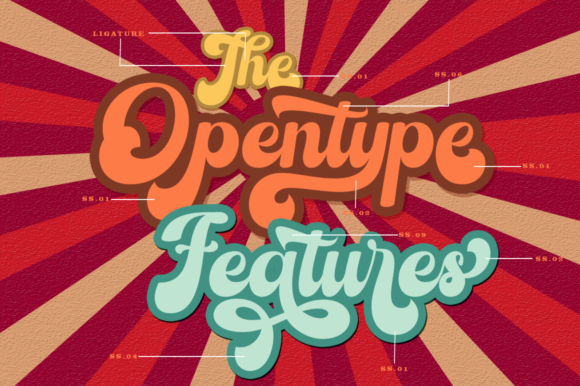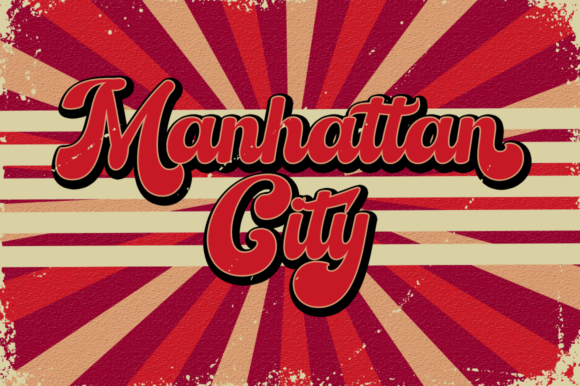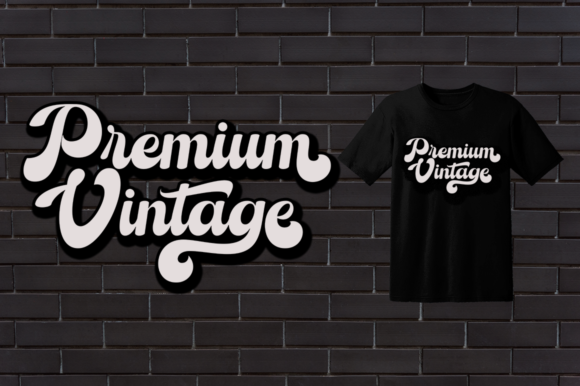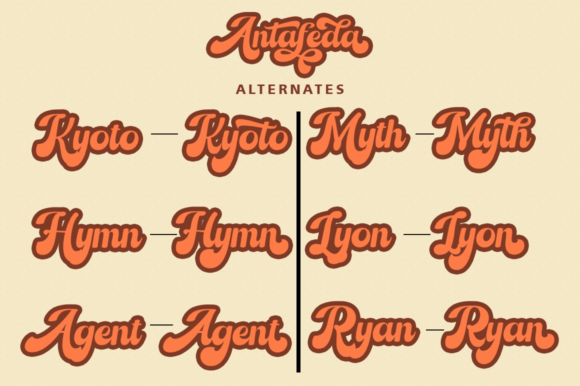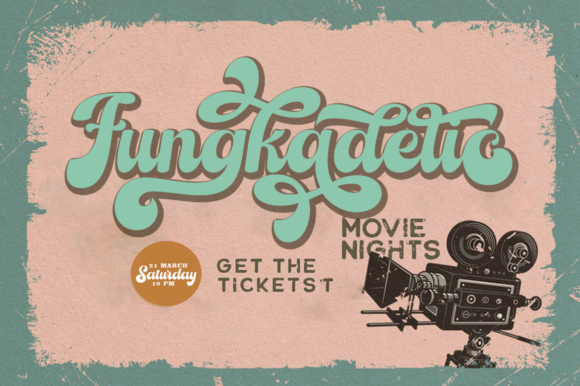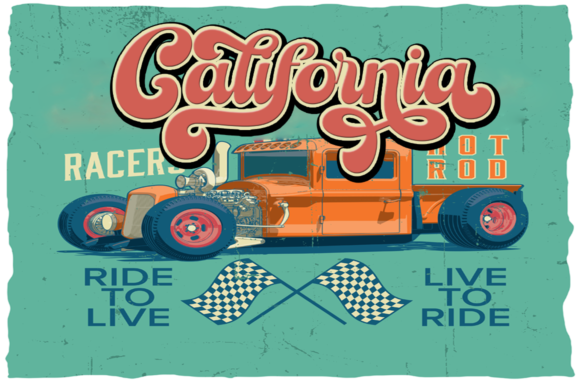
Introducing Antafeda Font: A Bold and Retro Styled Handwritten Font
Are you looking for a font that can add a touch of personality and style to your designs? Look no further than Antafeda Font, a bold and retro styled handwritten font that’s perfect for a wide range of projects. In this article, we’ll take a closer look at Antafeda Font, its features, and how you can use it to take your designs to the next level.
What is Antafeda Font?
Antafeda Font is a bold and retro styled handwritten font that’s designed to make a statement. Its unique and stylish lettering makes it perfect for use in a variety of projects, from wall displays and wedding invitations to social media post logos, advertisements, product packaging, and more.
Key Features of Antafeda Font
So what sets Antafeda Font apart from other fonts? Here are some of its key features:
- Bold and Retro Style: Antafeda Font has a bold and retro style that’s sure to grab attention. Its unique lettering makes it perfect for use in projects where you want to make a statement.
- Handwritten Font: Antafeda Font is a handwritten font, which gives it a personal and authentic feel. It’s perfect for use in projects where you want to add a touch of personality and style.
- PUA Encoded: Antafeda Font is PUA encoded, which means you can access all of the glyphs and swashes with ease. This makes it easy to use and customize the font to suit your needs.
- Wide Range of Uses: Antafeda Font is versatile and can be used in a wide range of projects, including wall displays, wedding invitations, social media post logos, advertisements, product packaging, product designs, labels, photography, watermarks, invitations, stationery, and more.
How to Use Antafeda Font
- Wall Displays: Use Antafeda Font to create eye-catching wall displays that are sure to grab attention. Whether you’re creating a display for a store, restaurant, or office, Antafeda Font is a great choice.
- Wedding Invitations: Add a touch of style and personality to your wedding invitations with Antafeda Font. Its bold and retro style makes it perfect for use in wedding stationery.
- Social Media Post Logos: Use Antafeda Font to create social media post logos that stand out from the crowd. Its unique lettering makes it perfect for use in social media graphics.
- Advertisements: Antafeda Font is a great choice for use in advertisements. Its bold and retro style makes it sure to grab attention and draw in customers.
- Product Packaging: Add a touch of personality and style to your product packaging with Antafeda Font. Its unique lettering makes it perfect for use in product labels and packaging.
Benefits of Using Antafeda Font
So why should you choose Antafeda Font for your designs? Here are some of the benefits of using this font:
- Unique and Stylish: Antafeda Font is a unique and stylish font that’s sure to add a touch of personality and style to your designs.
- Versatile: Antafeda Font is versatile and can be used in a wide range of projects, making it a great addition to any designer’s toolkit.
- Easy to Use: Antafeda Font is easy to use and can be incorporated into your designs with ease. Its PUA encoding makes it easy to access all of the glyphs and swashes.
- High-Quality: Antafeda Font is a high-quality font that’s designed to produce great results. Its bold and retro style makes it perfect for use in a variety of projects.
In conclusion, Antafeda Font is a bold and retro styled handwritten font that’s perfect for use in a wide range of projects. Its unique and stylish lettering makes it sure to grab attention and add a touch of personality and style to your designs. With its PUA encoding and ease of use, Antafeda Font is a great choice for designers and crafters looking to take their designs to the next level.